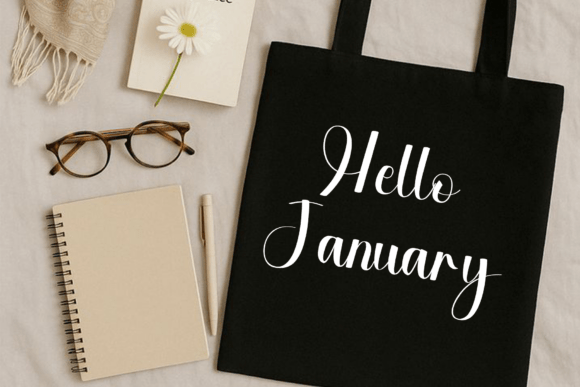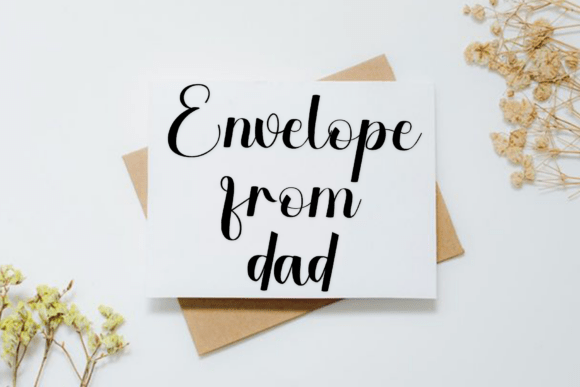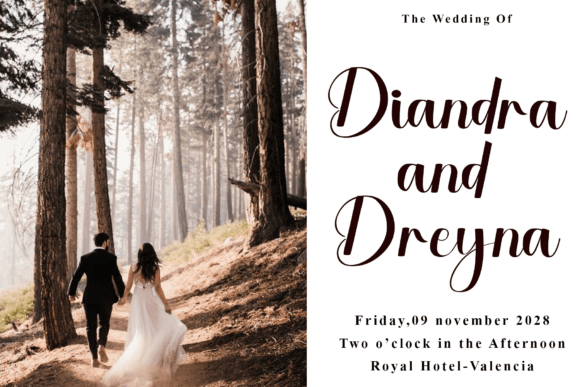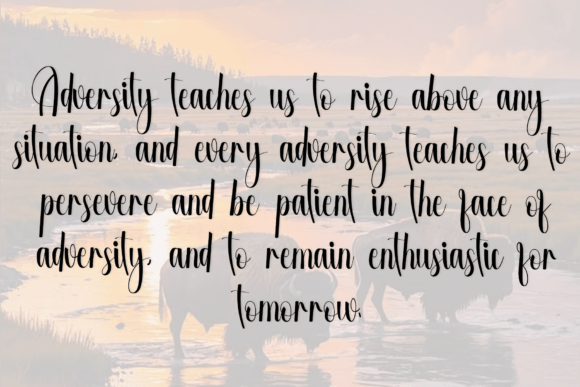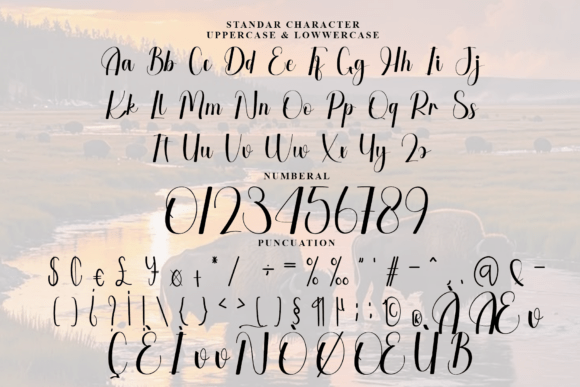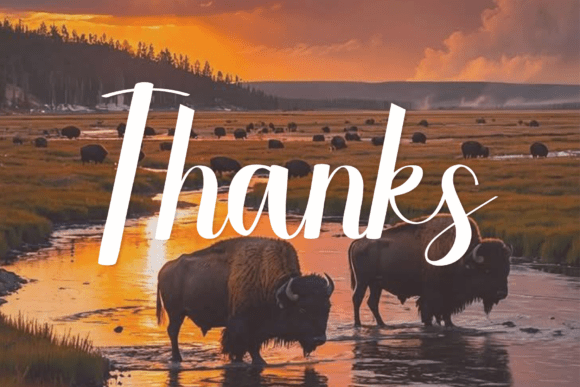
Introducing Buffalo Font: The Perfect Blend of Organic Charm and Strong Typographic Presence
Are you a designer or crafter looking for a font that can add a touch of personality to your outdoor lifestyle branding, organic product packaging, travel-themed graphics, or rustic event invitations? Look no further than Buffalo Font, a stylish handwritten typeface that seamlessly blends organic charm with a strong typographic presence.
The Unique Characteristics of Buffalo Font
Buffalo Font features thick, solid strokes with a distinct “bouncy” rhythm that gives it a friendly and approachable character. This unique typography is part of the “Unique and Professional” collection, which showcases a range of fonts designed to help you create visually stunning designs. The well-balanced proportions of Buffalo Font ensure it remains impactful even in busy designs, making it the perfect choice for a wide range of applications.
What Makes Buffalo Font So Versatile?
One of the key benefits of Buffalo Font is its versatility. Its organic charm and strong typographic presence make it suitable for a wide range of design projects, from outdoor lifestyle branding to rustic event invitations. Whether you’re looking to create a bold and eye-catching logo or a more subtle and sophisticated packaging design, Buffalo Font is the perfect choice.
Perfect for Outdoor Lifestyle Branding
If you’re working on an outdoor lifestyle branding project, Buffalo Font is an excellent choice. Its rugged yet refined aesthetic makes it perfect for creating logos, signage, and marketing materials that need to stand out in a crowded market. From hiking and camping gear to outdoor apparel and accessories, Buffalo Font can help you create a brand identity that resonates with your target audience.
Elevate Your Organic Product Packaging with Buffalo Font
Buffalo Font is also an excellent choice for organic product packaging. Its natural, handmade aesthetic makes it perfect for creating labels, packaging, and branding materials that need to convey a sense of eco-friendliness and sustainability. Whether you’re working with food, cosmetics, or other organic products, Buffalo Font can help you create a packaging design that stands out on store shelves.
Travel-Themed Graphics and Rustic Event Invitations
In addition to its use in branding and packaging, Buffalo Font is also well-suited for travel-themed graphics and rustic event invitations. Its adventurous, handmade aesthetic makes it perfect for creating posters, flyers, and social media graphics that need to capture the spirit of exploration and adventure. Similarly, its elegant yet rustic charm makes it an excellent choice for rustic event invitations, such as weddings, festivals, and other outdoor events.
Why Choose Buffalo Font?
So why choose Buffalo Font over other fonts on the market? Here are just a few reasons:
- Unique and distinctive aesthetic: Buffalo Font features a unique blend of organic charm and strong typographic presence that sets it apart from other fonts.
- Versatile and adaptable: Buffalo Font can be used in a wide range of design projects, from branding and packaging to graphics and invitations.
- Well-balanced proportions: The font’s well-balanced proportions ensure it remains impactful even in busy designs.
- Easy to read: Despite its bold and expressive aesthetic, Buffalo Font is easy to read and understand.
In conclusion, Buffalo Font is a stylish handwritten typeface that offers a unique blend of organic charm and strong typographic presence. Its versatility, well-balanced proportions, and easy-to-read aesthetic make it an excellent choice for designers and crafters looking to add a touch of personality to their outdoor lifestyle branding, organic product packaging, travel-themed graphics, and rustic event invitations. Whether you’re working on a bold and eye-catching logo or a more subtle and sophisticated packaging design, Buffalo Font is the perfect choice.